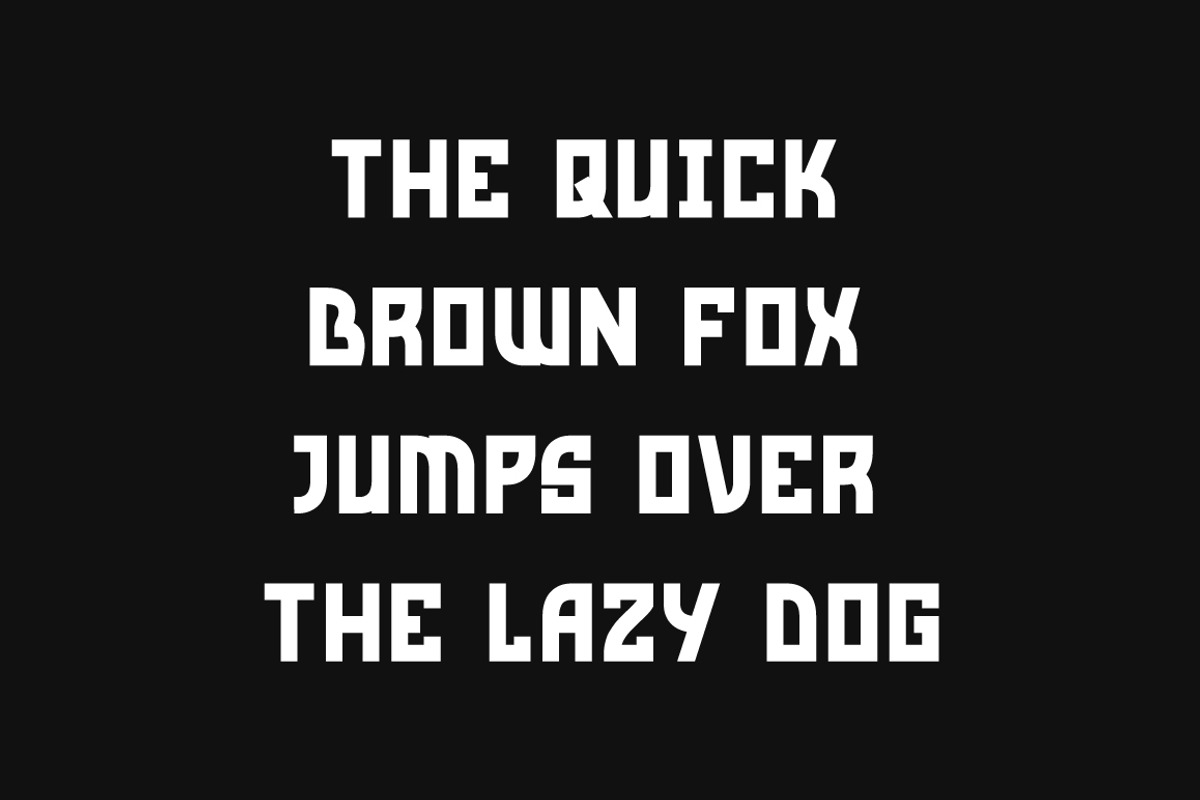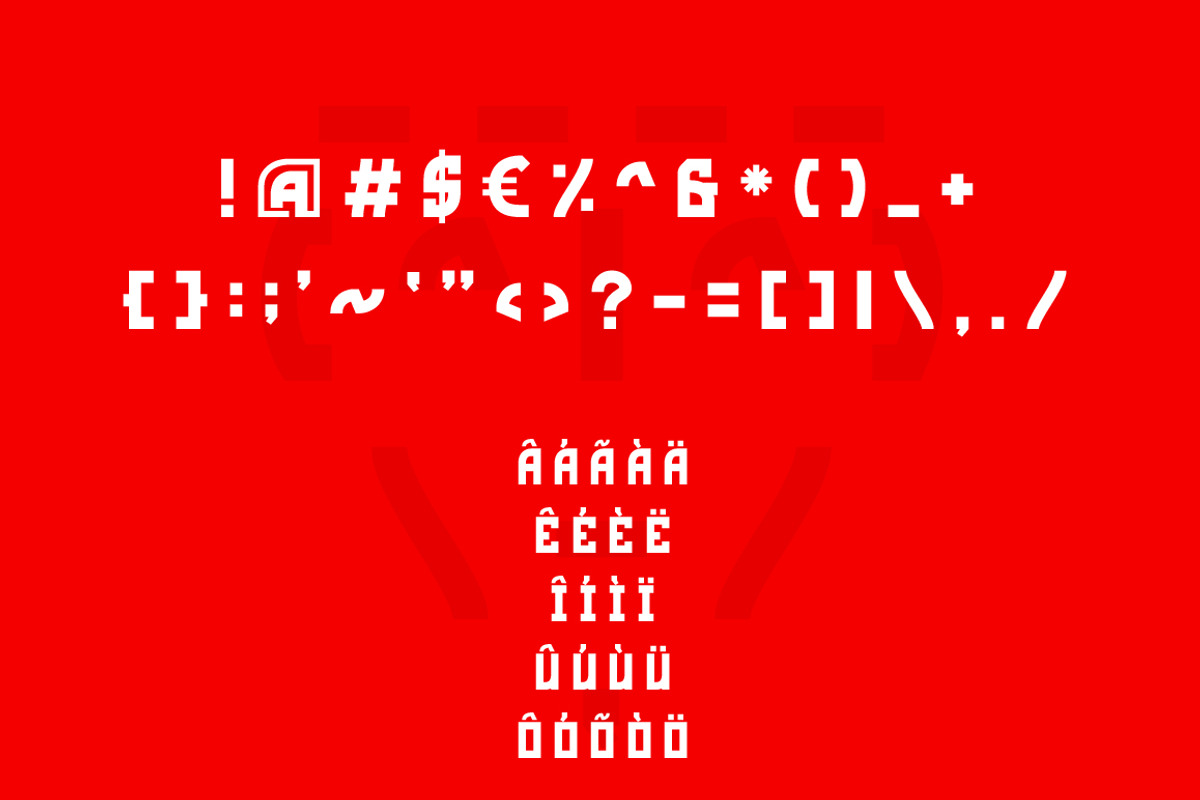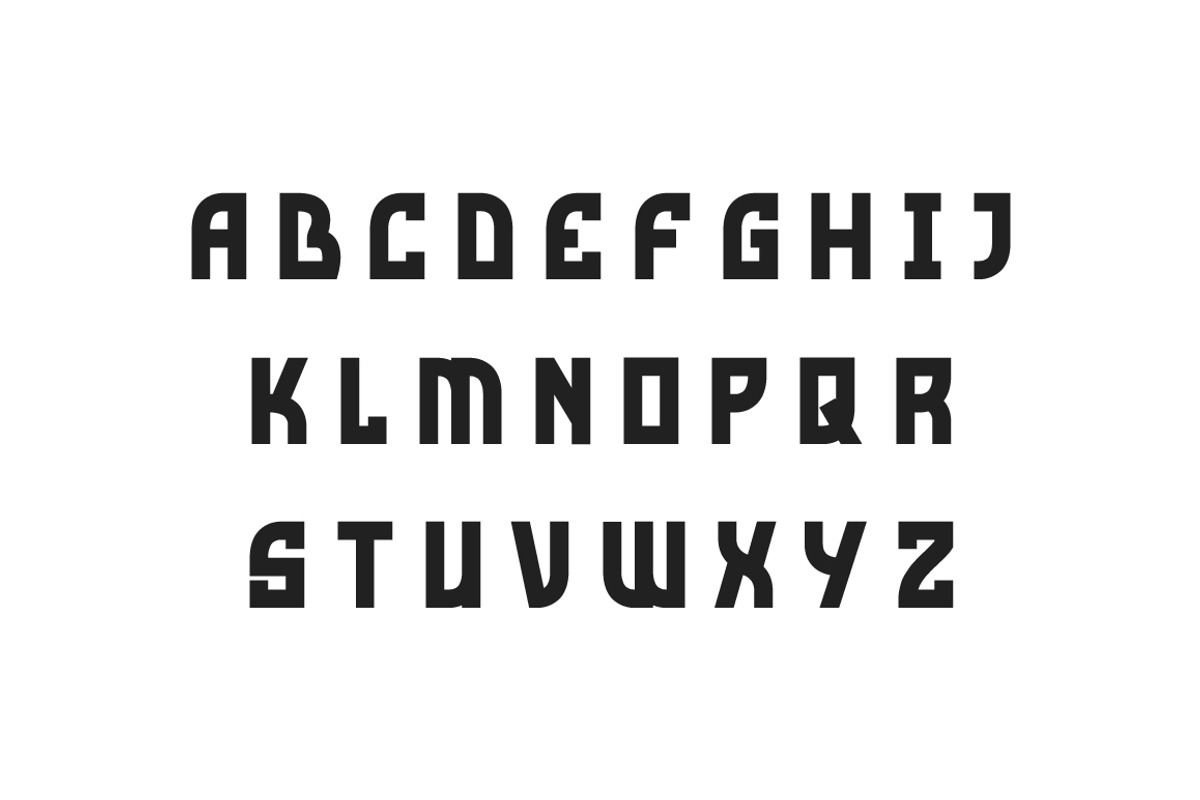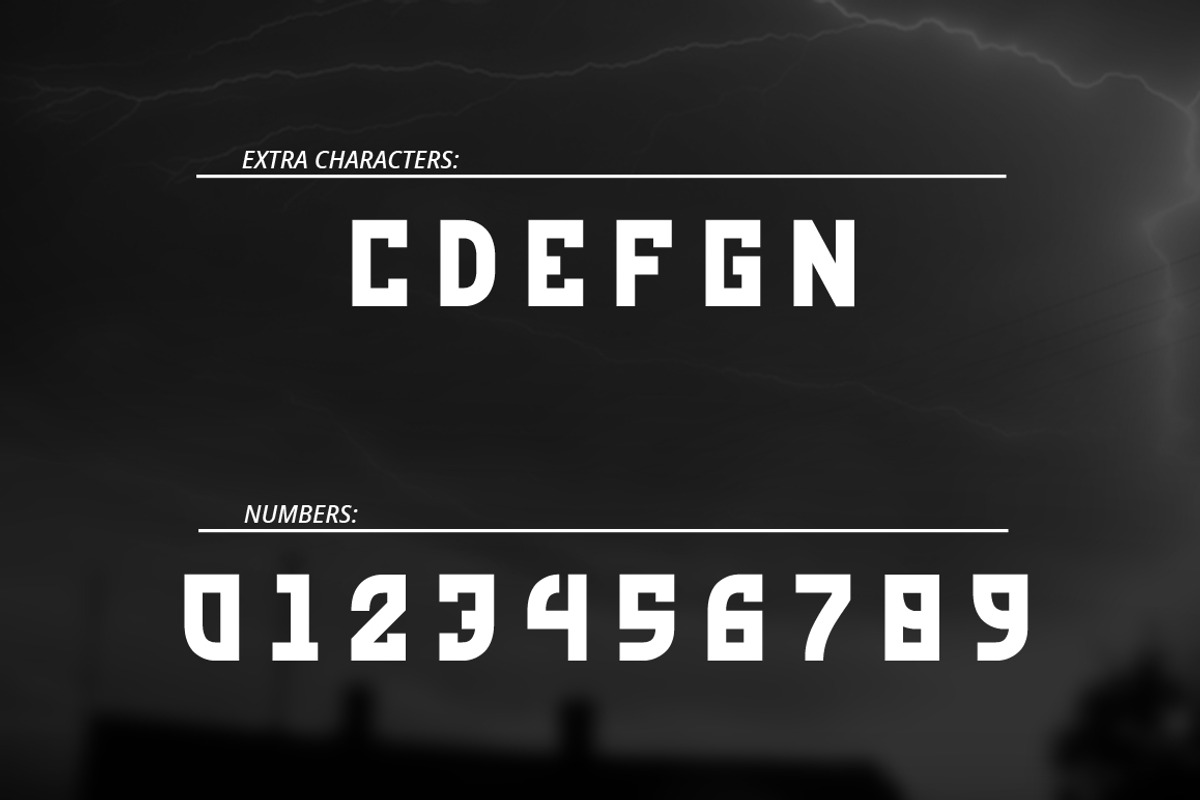
Red Storm | Special Designer Font
Red Storm | Special Designer Font by Henryvdwal is a font selected for branding, posters, packaging, typography.
Why Red Storm | Special Designer Font is worth a look
Red Storm | Special Designer Font by Henryvdwal fits naturally into Branding, posters, packaging, typography.